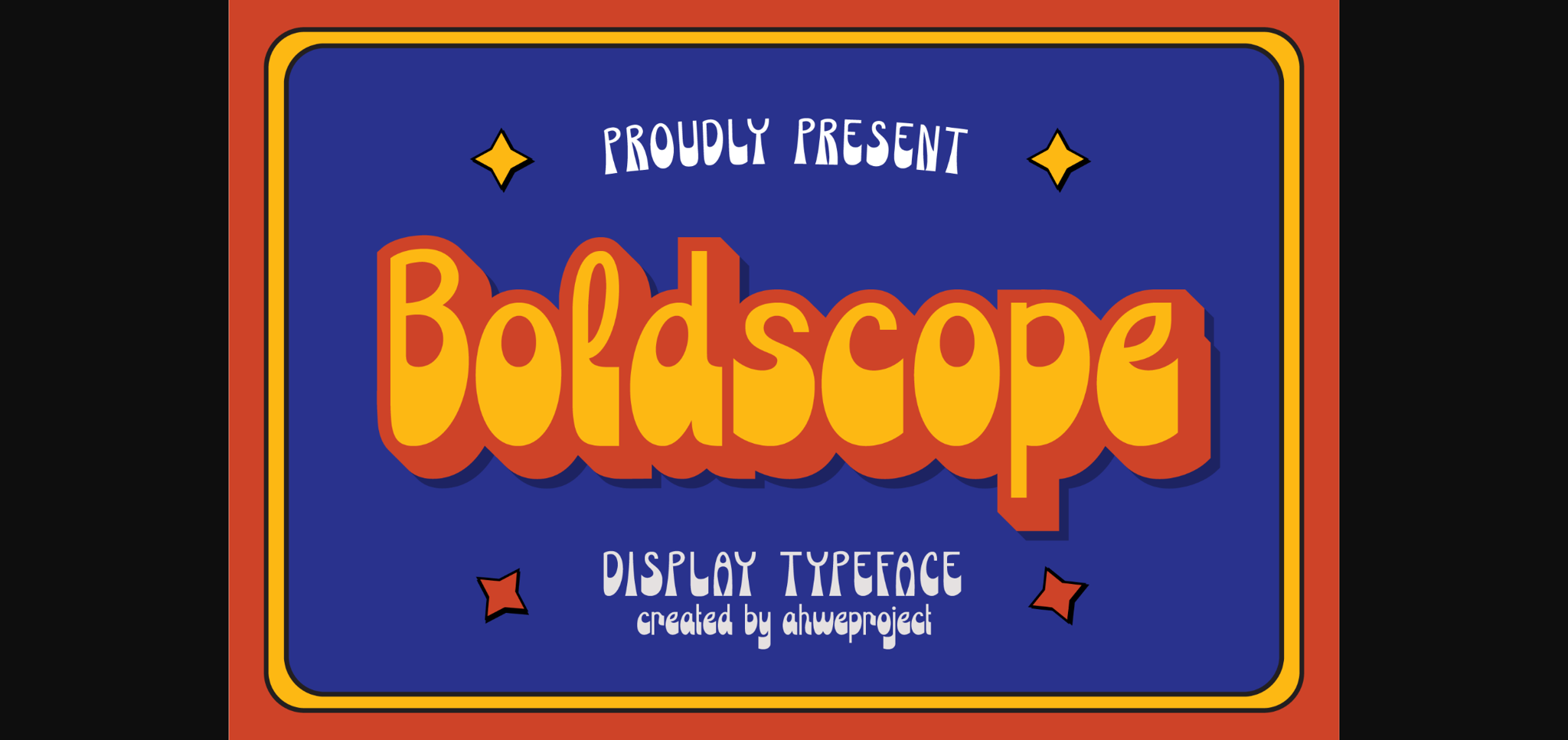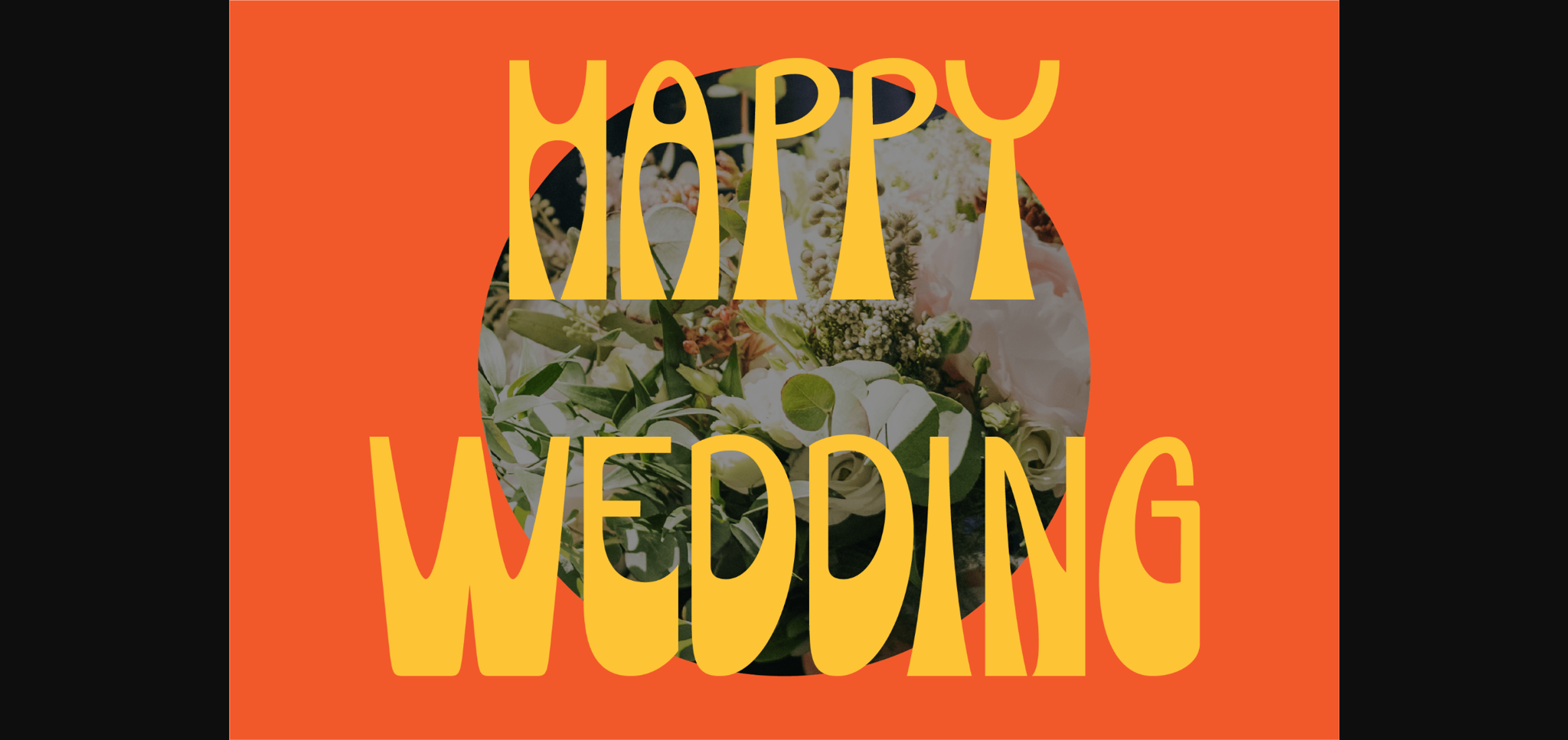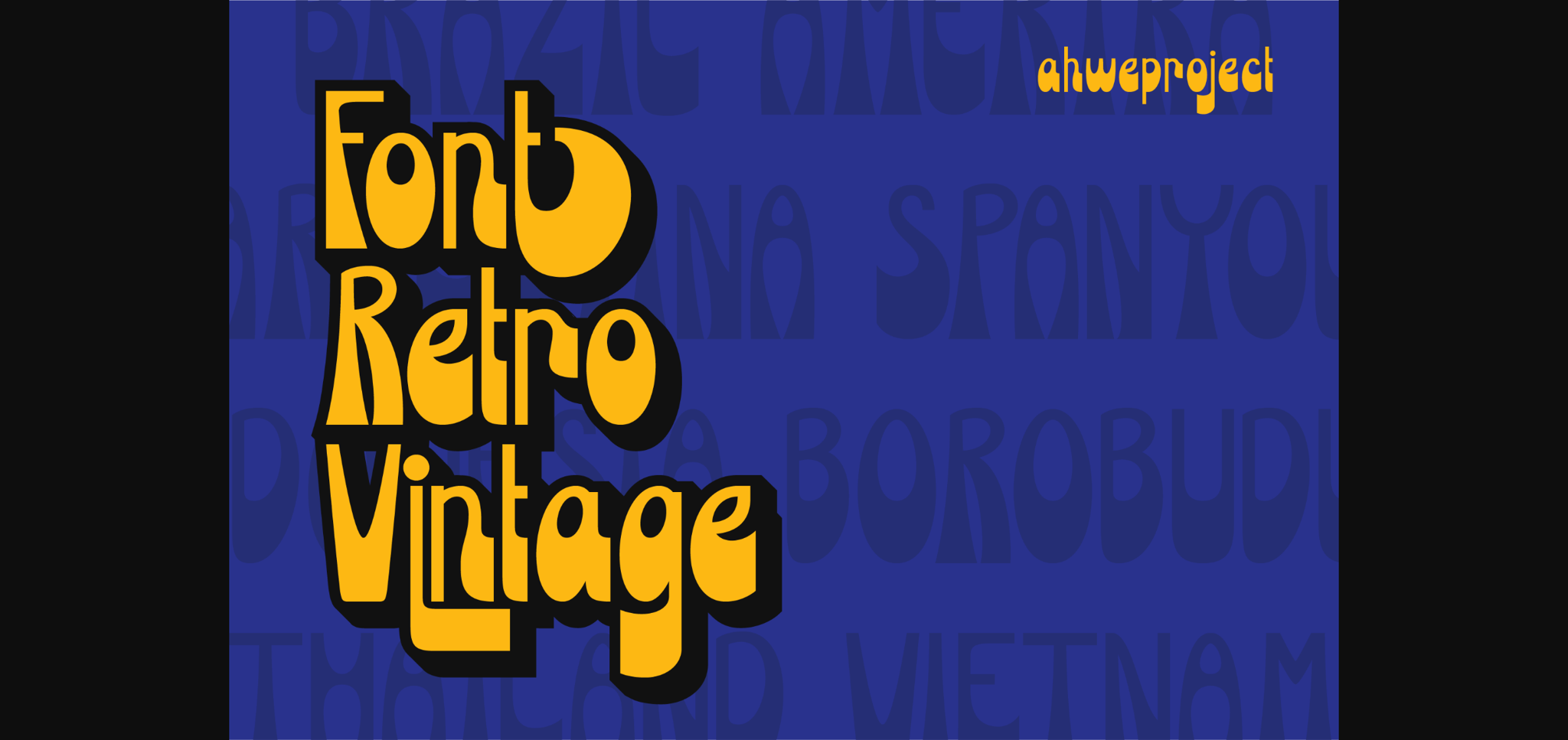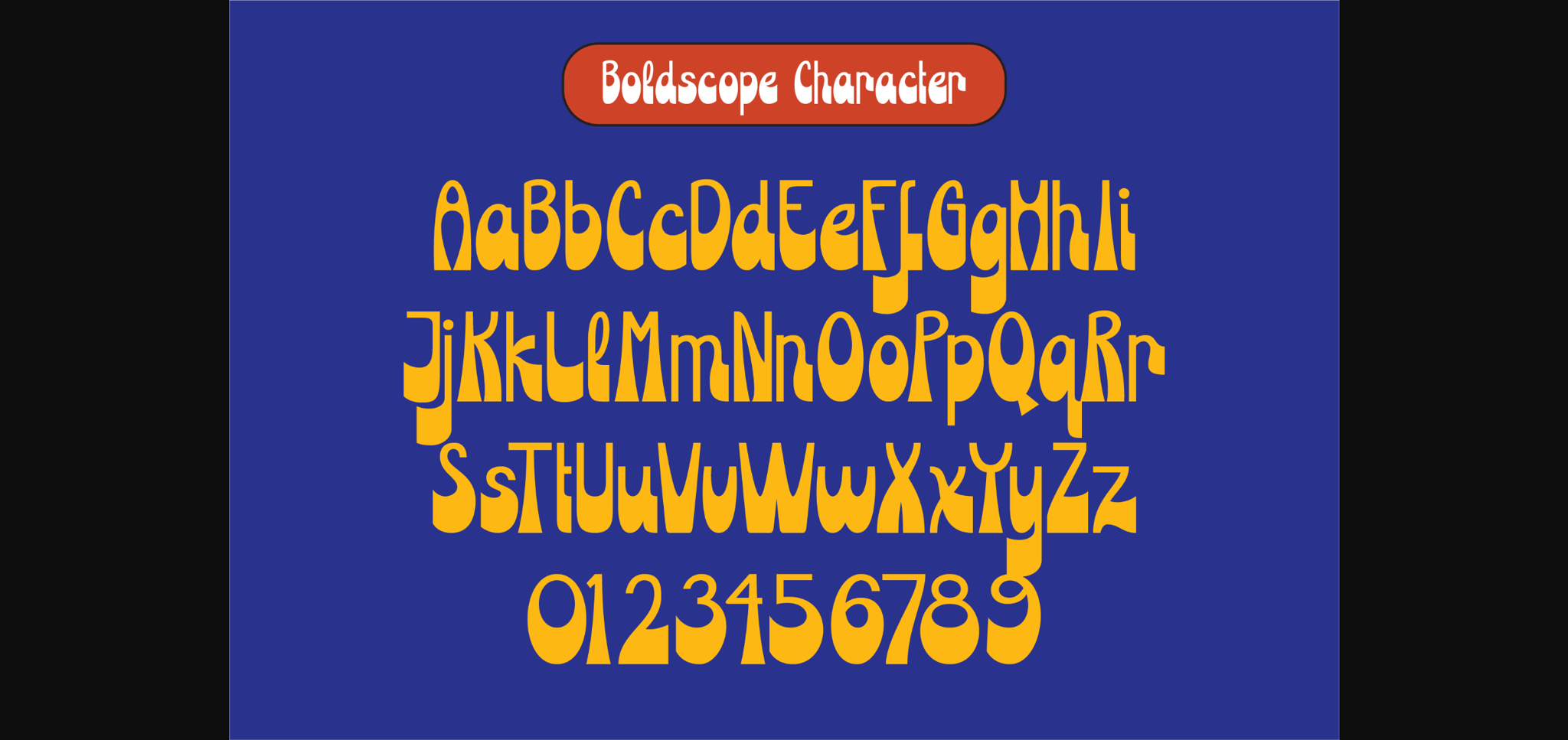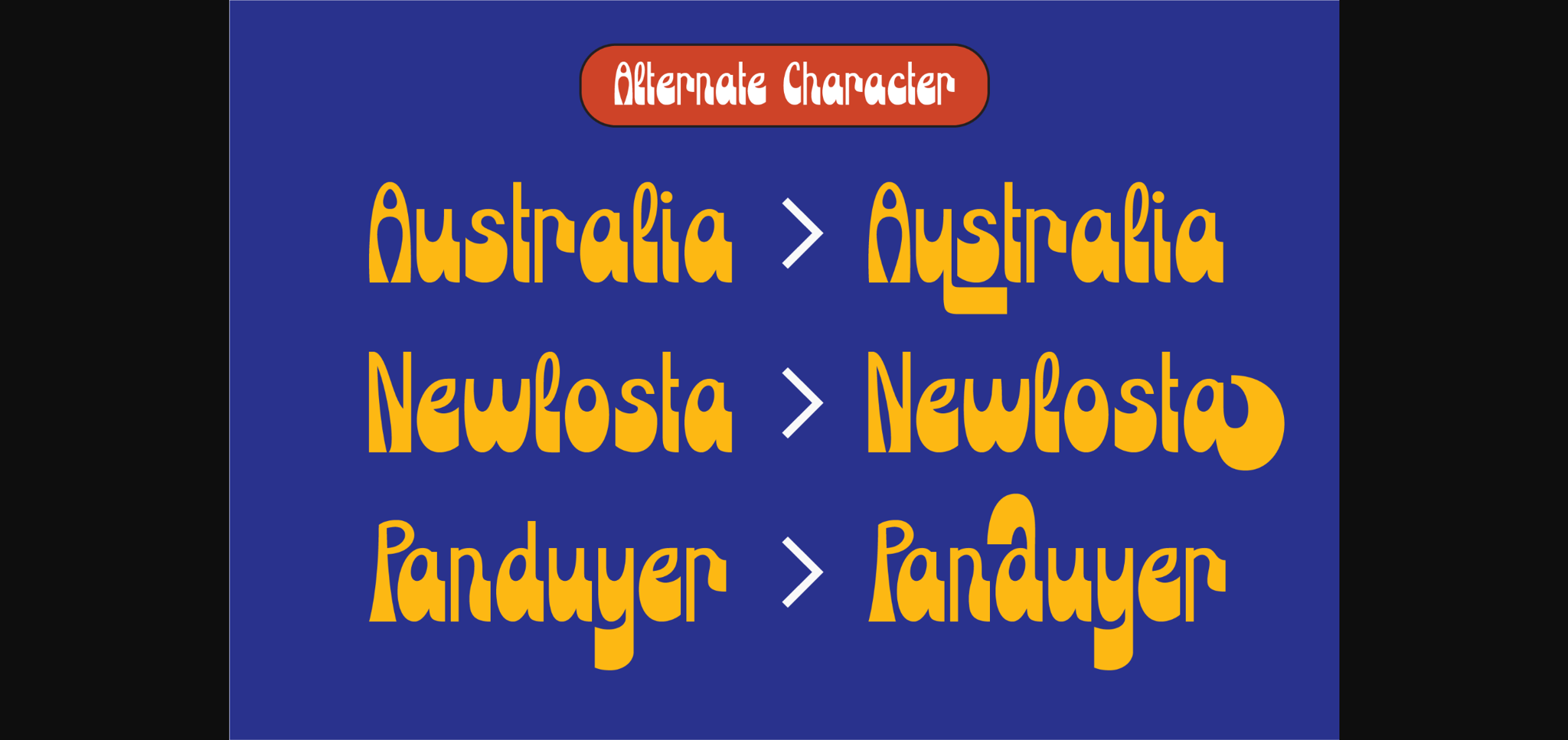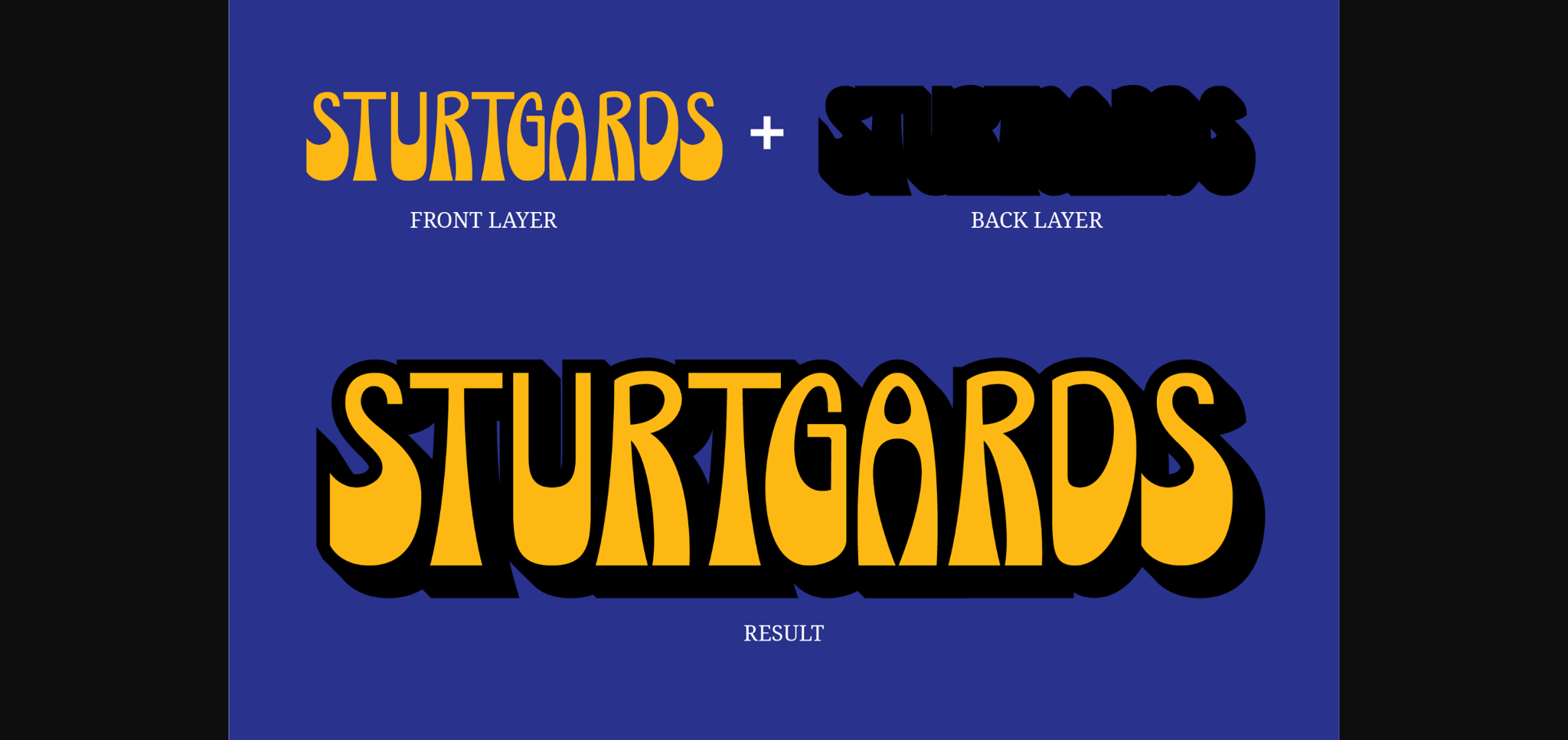
Boldscope Font
About Boldscope Font
Boldscope is a fun, retro-psychedelic display font. No matter the topic, this font will be an incredible asset to your fonts’ library, as it has the potential to elevate any creation.